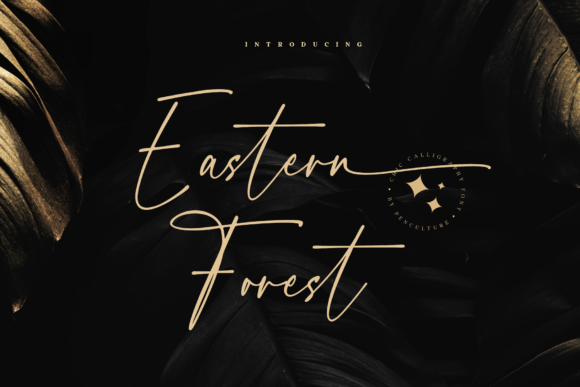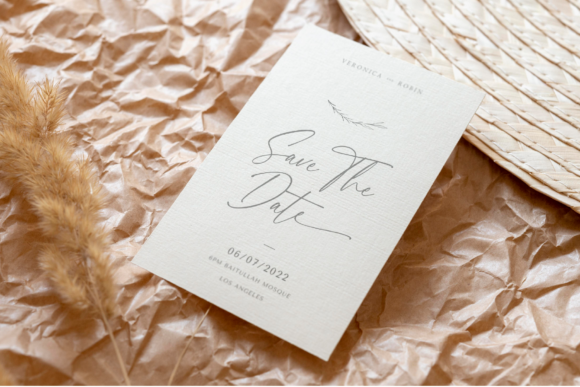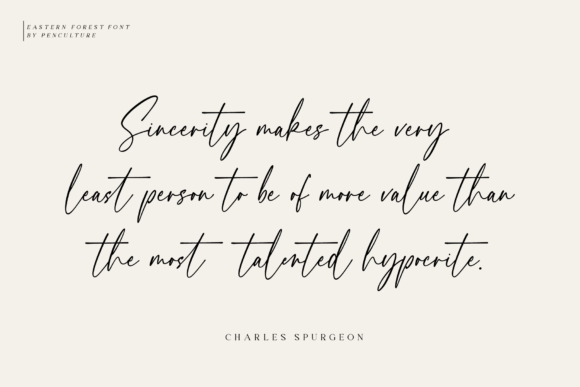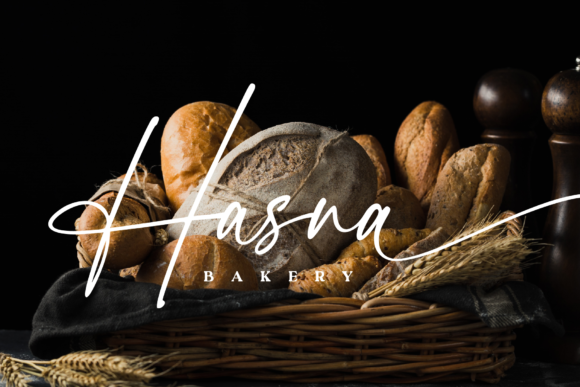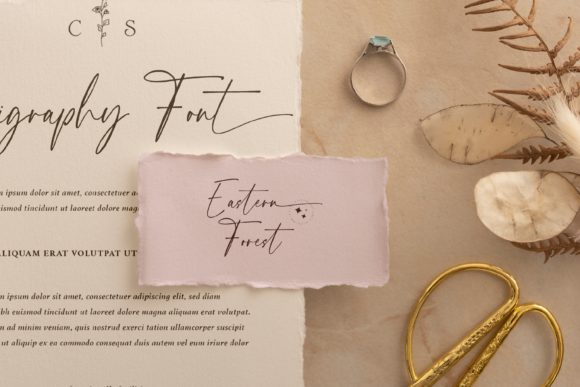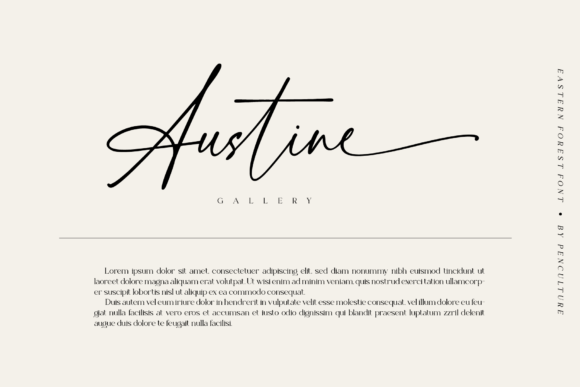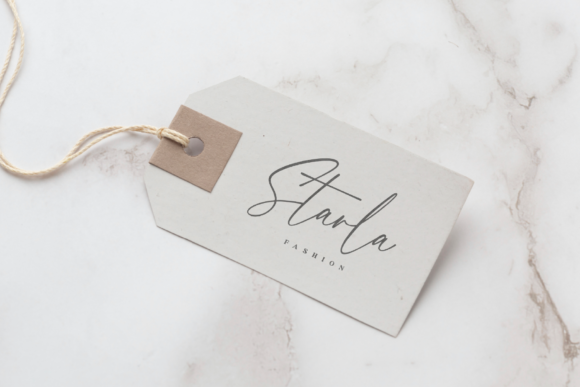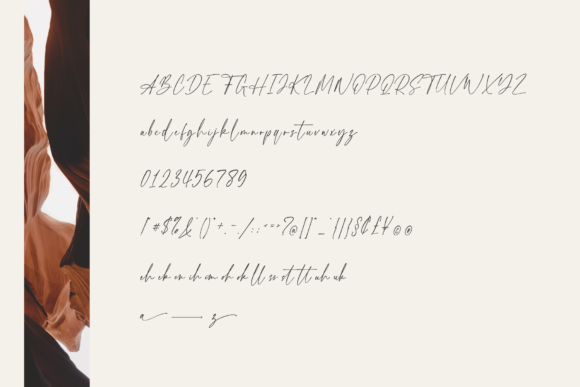
Eastern Forest Font
Eastern Forest is a modern and chic calligraphy font with lovely strokes. Slim and graceful, this typeface is a wonderful addition to your font library!